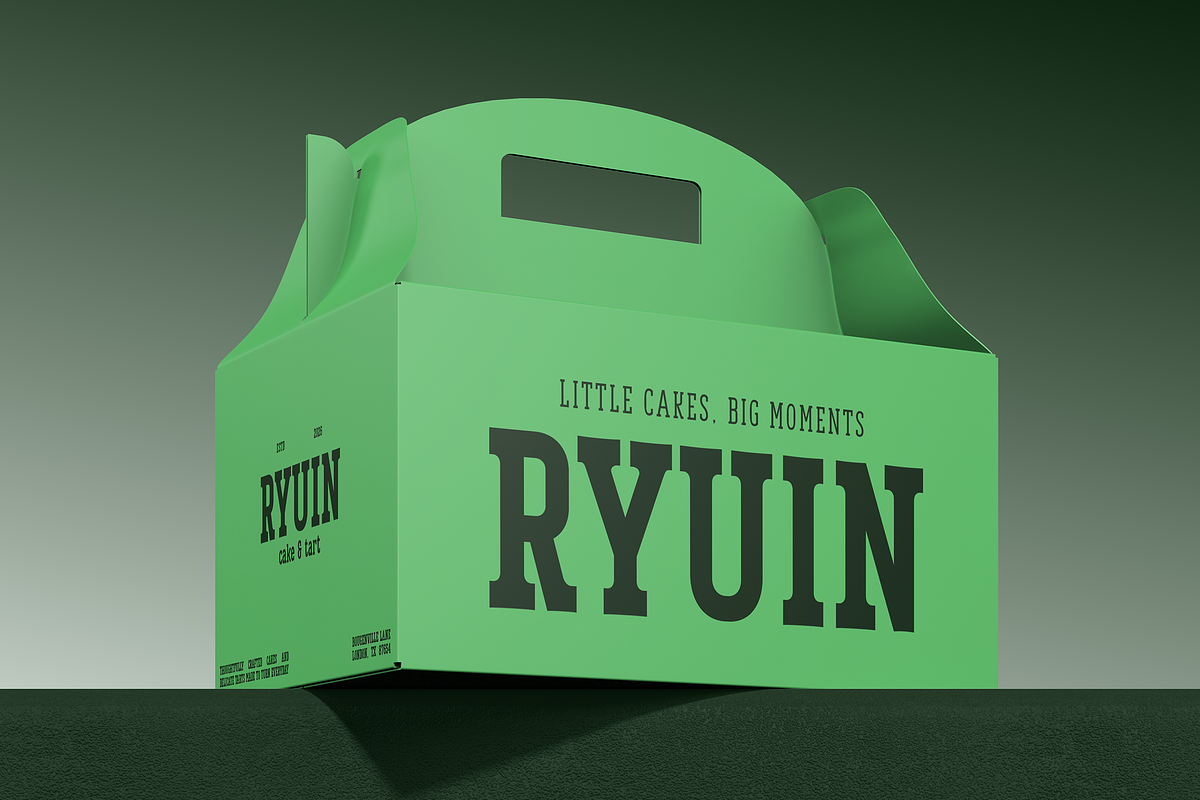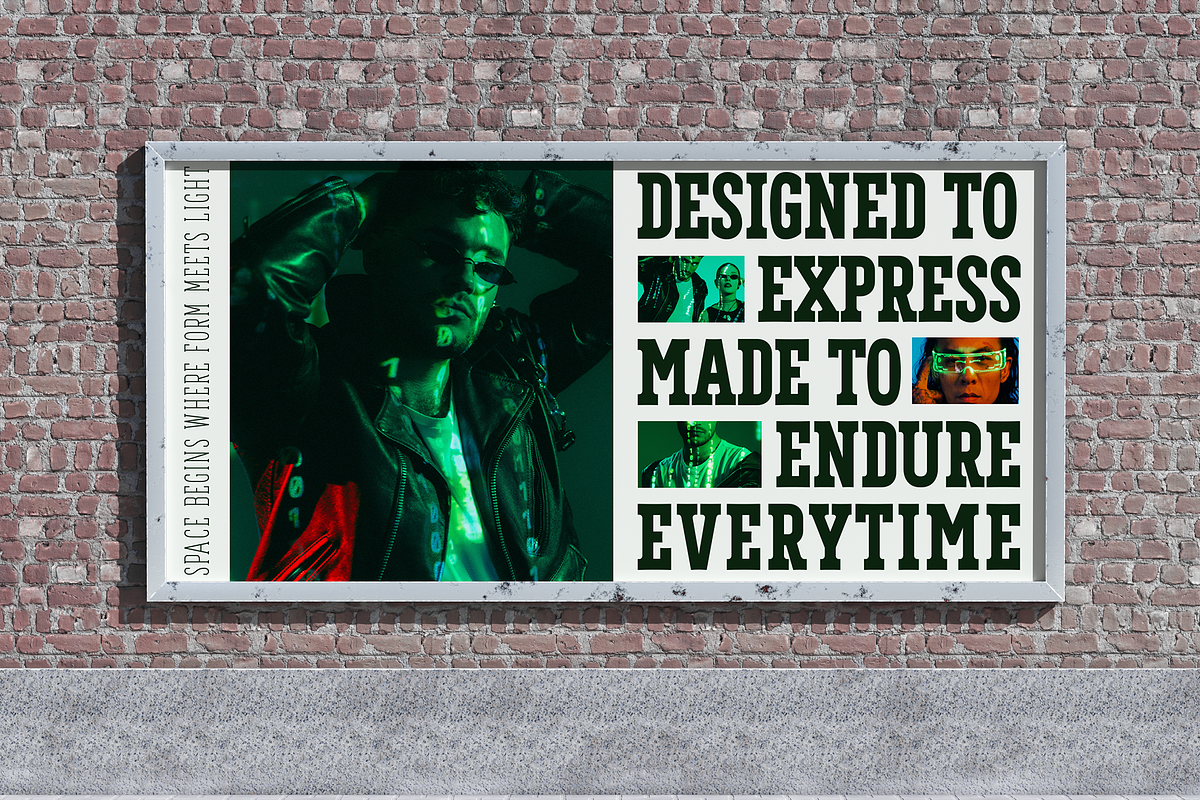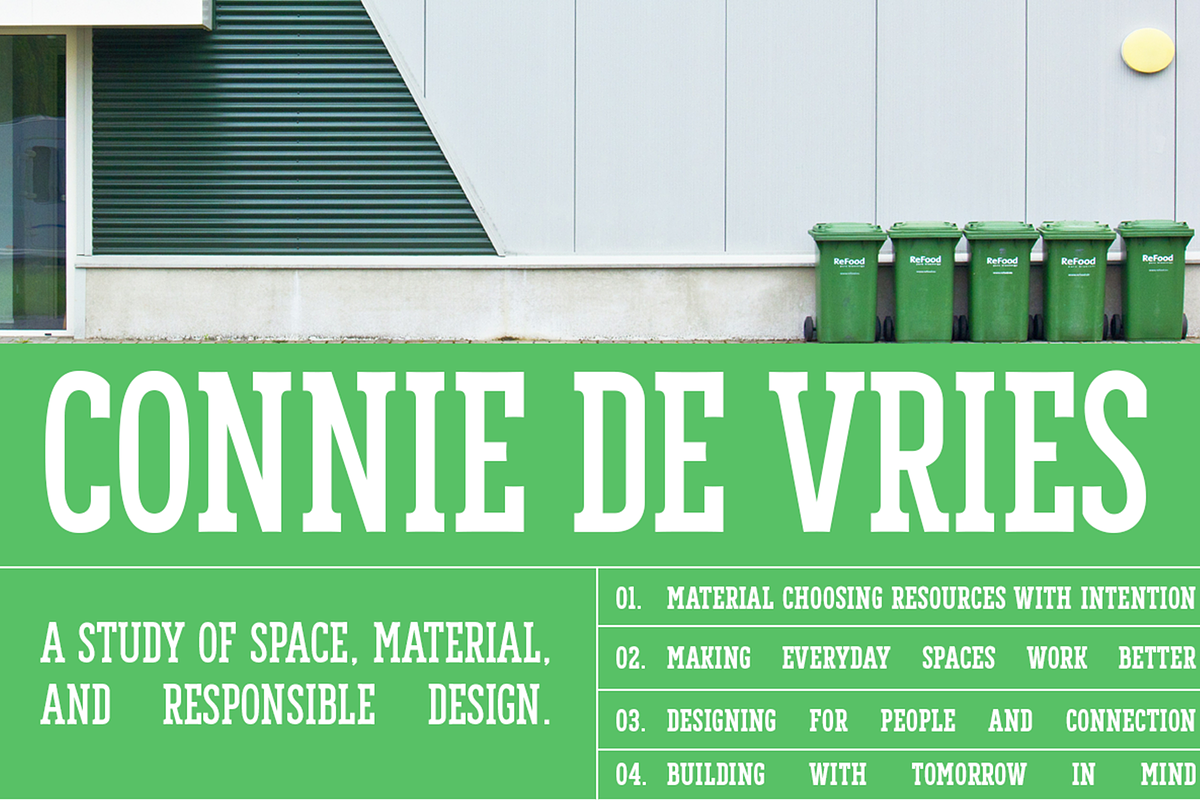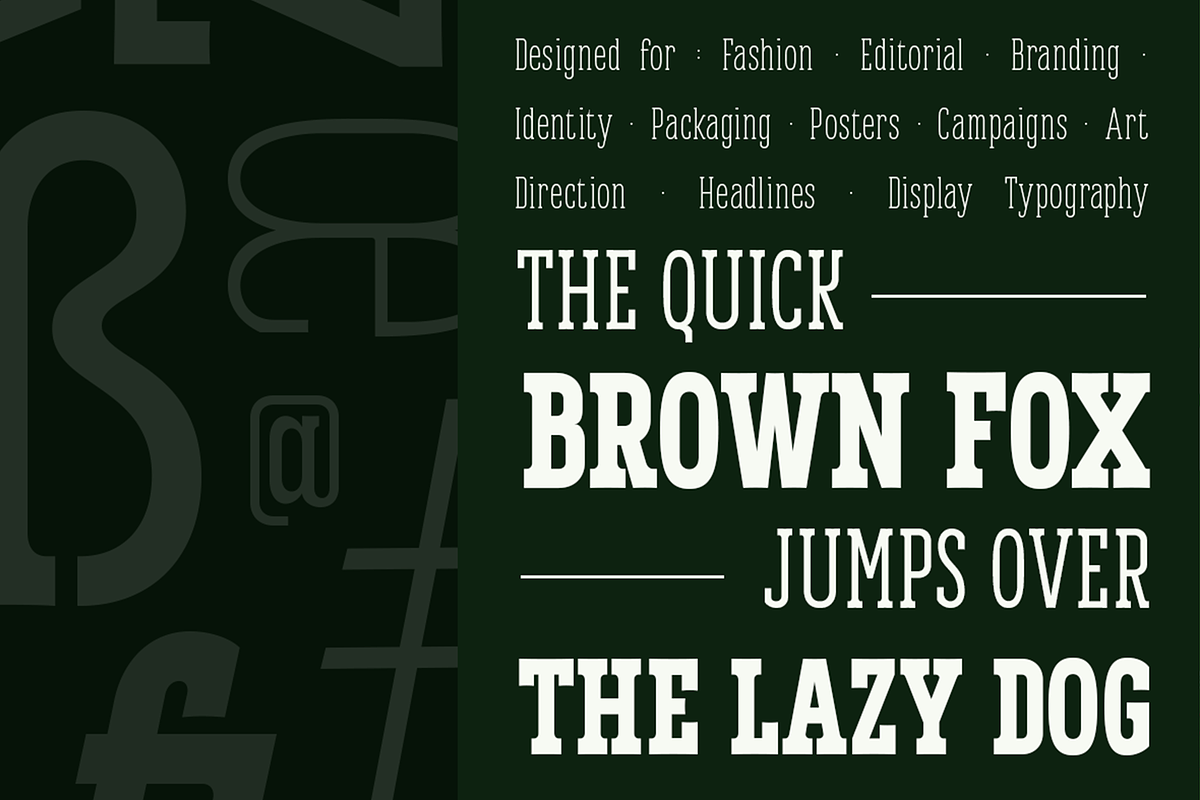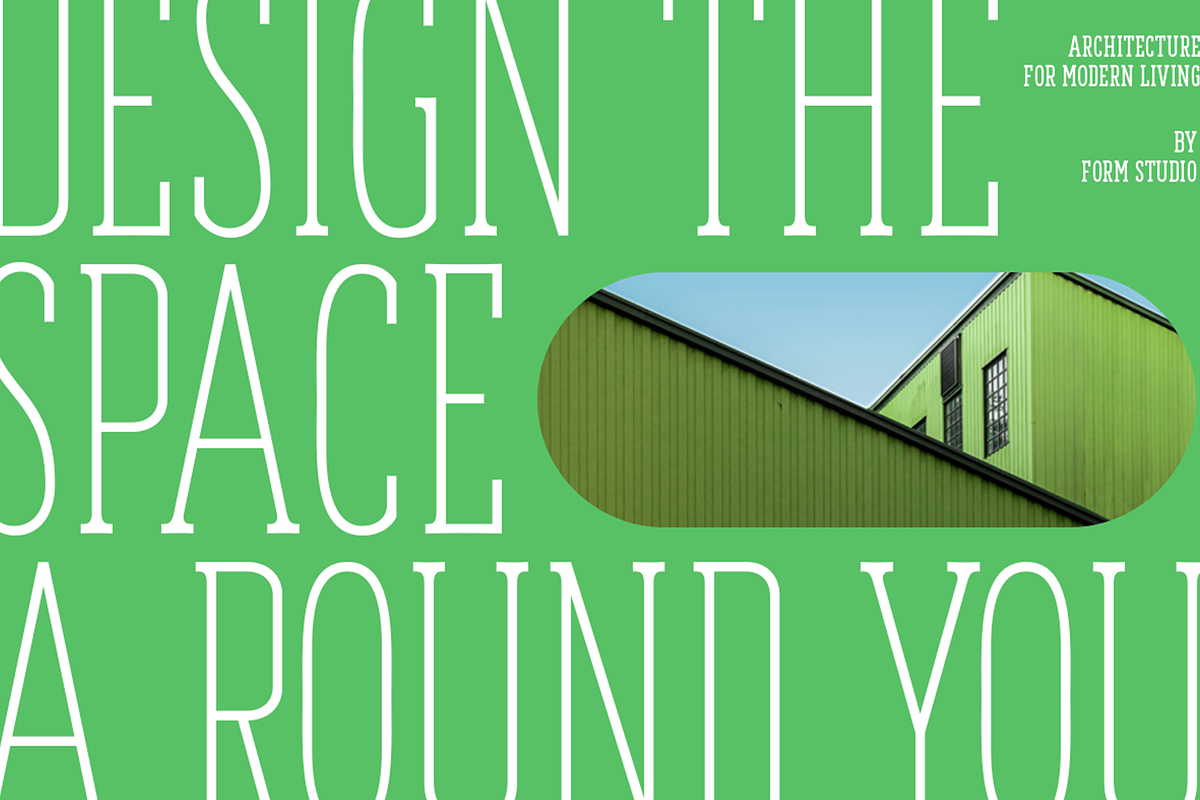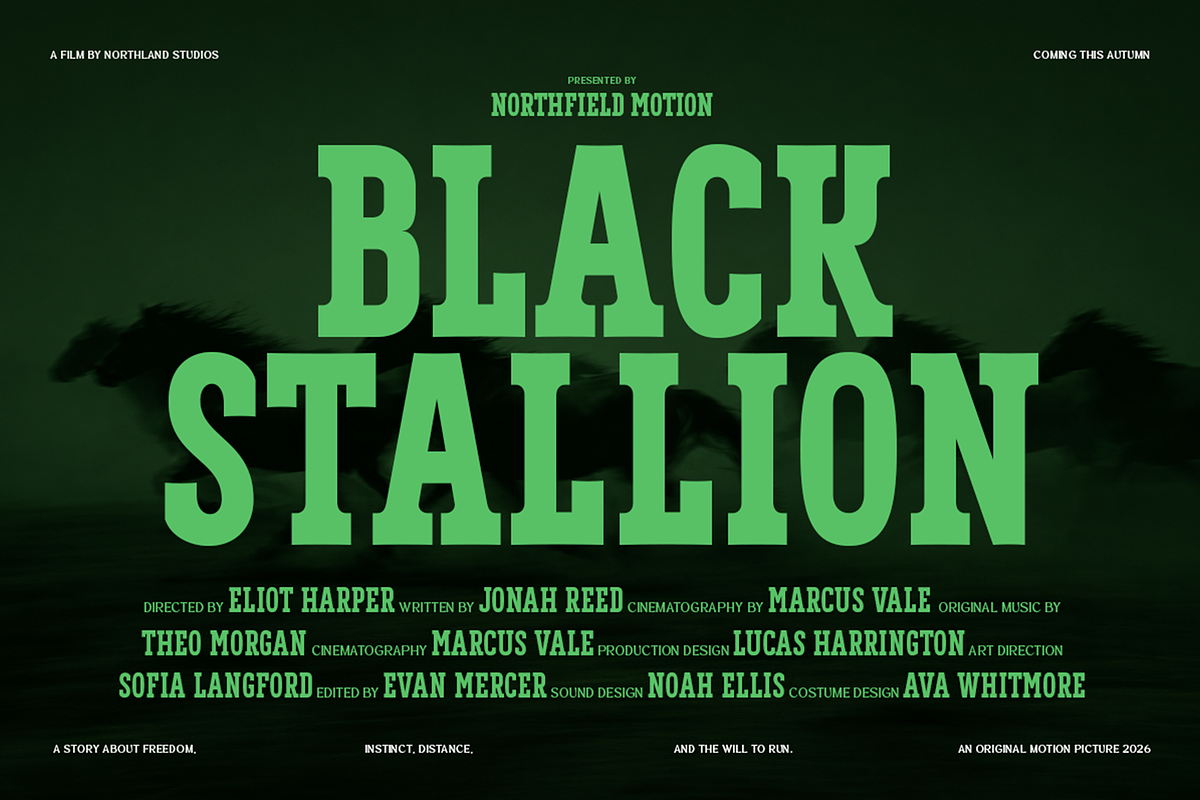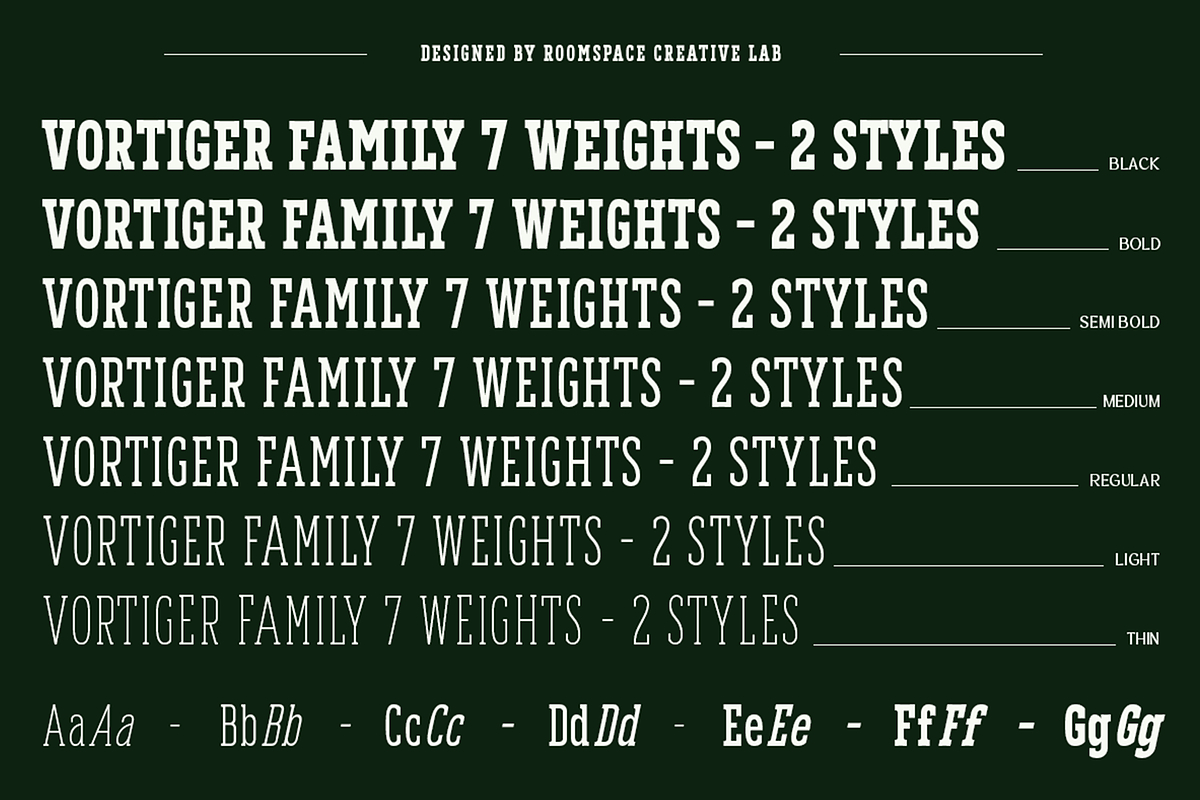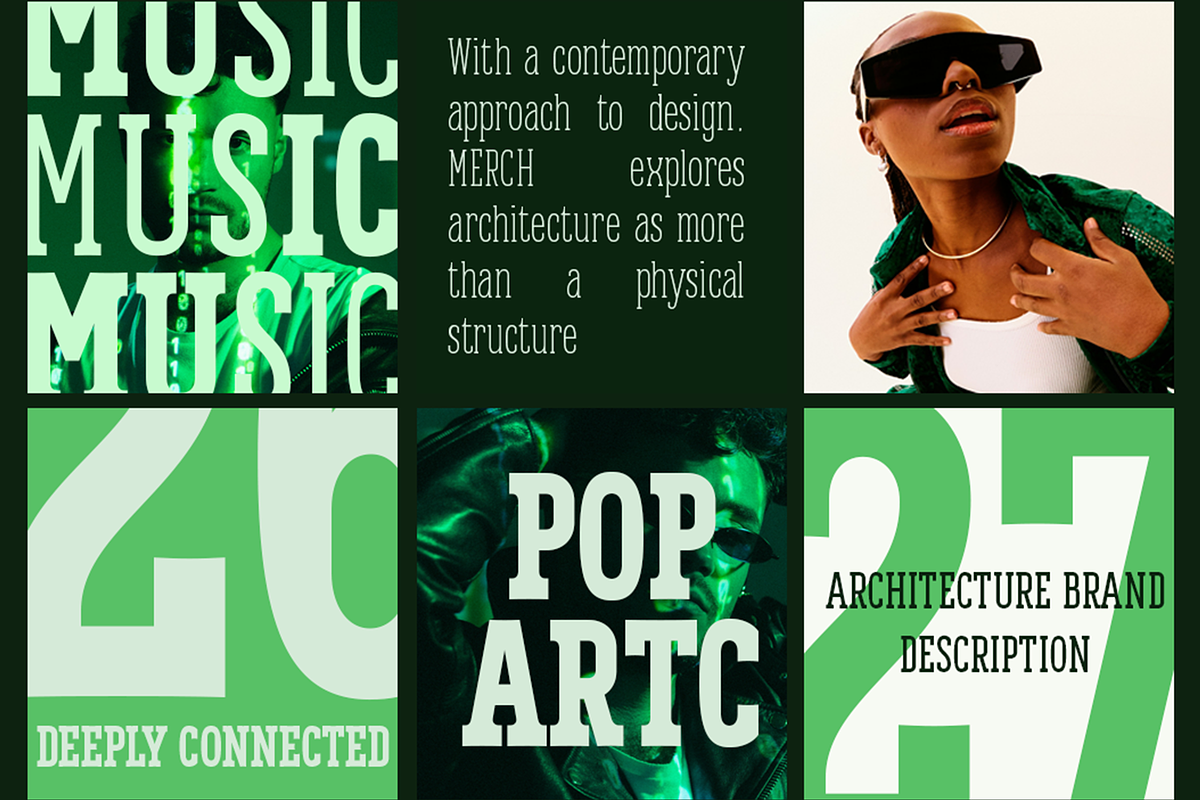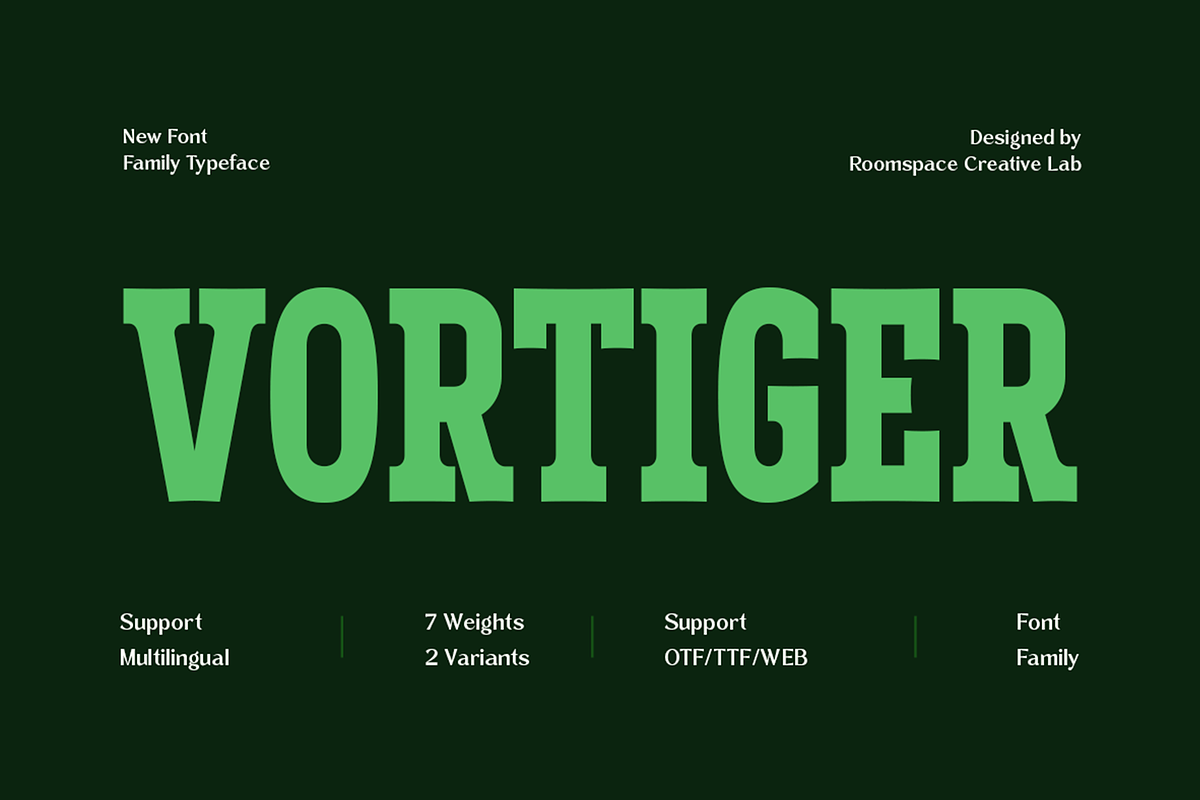
Vortiger – Modern Western Serif
Vortiger is a modern western serif display typeface created for bold headlines, expressive typography, and distinctive visual identities. Its strong serif construction, tall proportions, and contrasting weights give the typeface a vintage-inspired character while maintaining a contemporary graphic presence.
The Vortiger family includes 7 weights ranging from Thin to Black, giving designers flexibility to create clear typographic hierarchy and contrast. The family is available in 2 styles and supports multilingual characters for international design projects.
Vortiger is designed for branding, logo concepts, editorial layouts, posters, packaging, fashion graphics, advertising campaigns, album artwork, movie titles, merchandise, signage, social media graphics, and other display-focused applications. Its heavier weights are suitable for impactful headlines and large typography, while lighter weights can be used to create contrast and supporting visual elements.